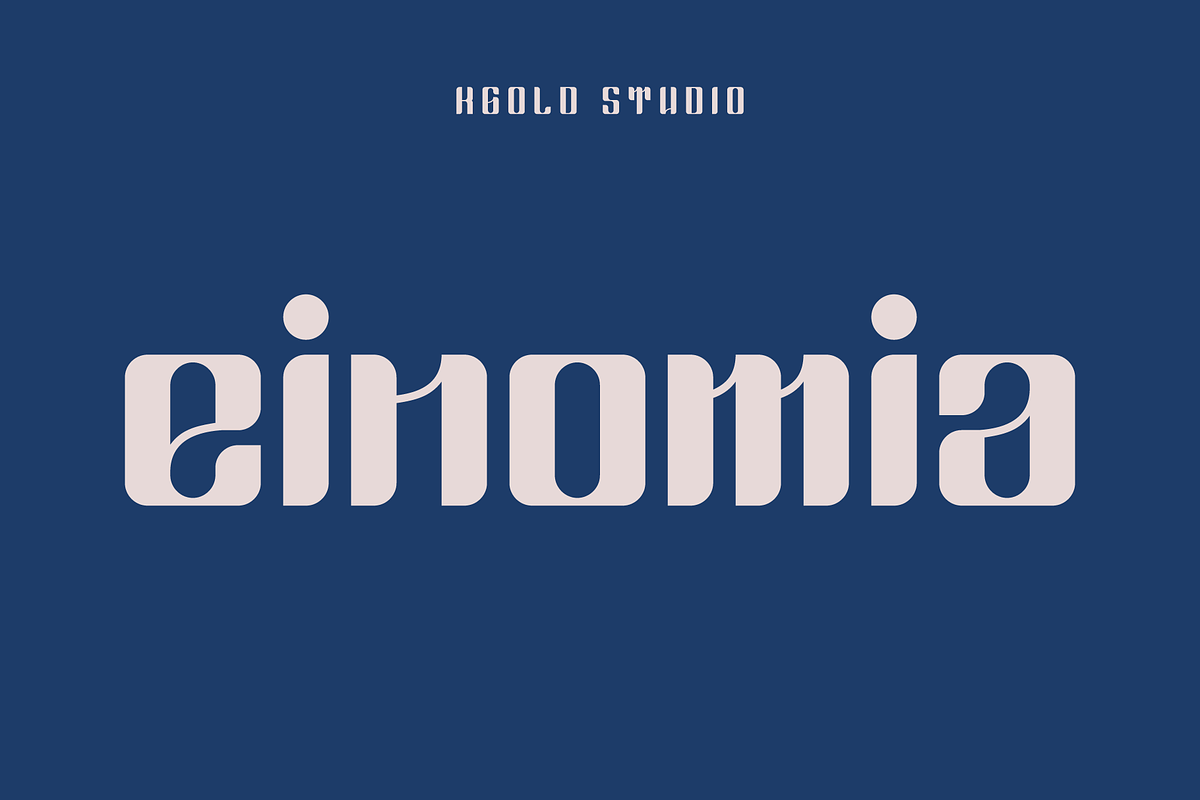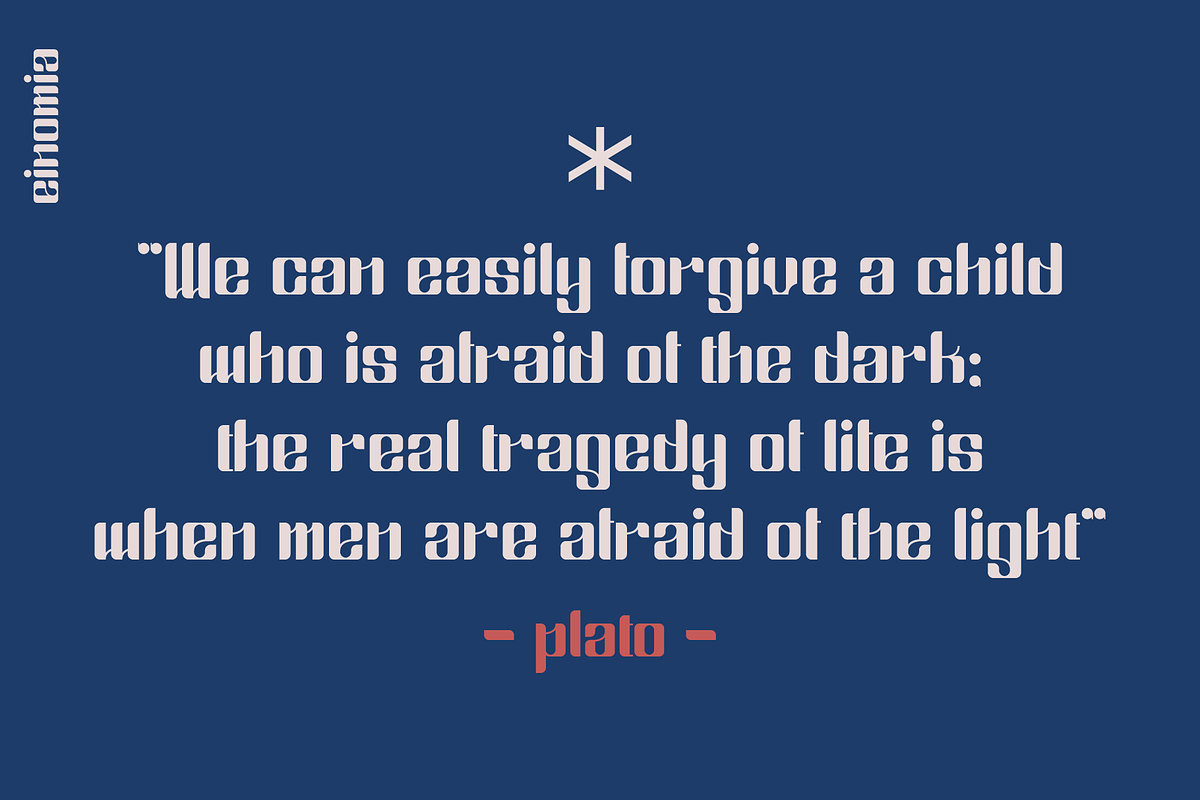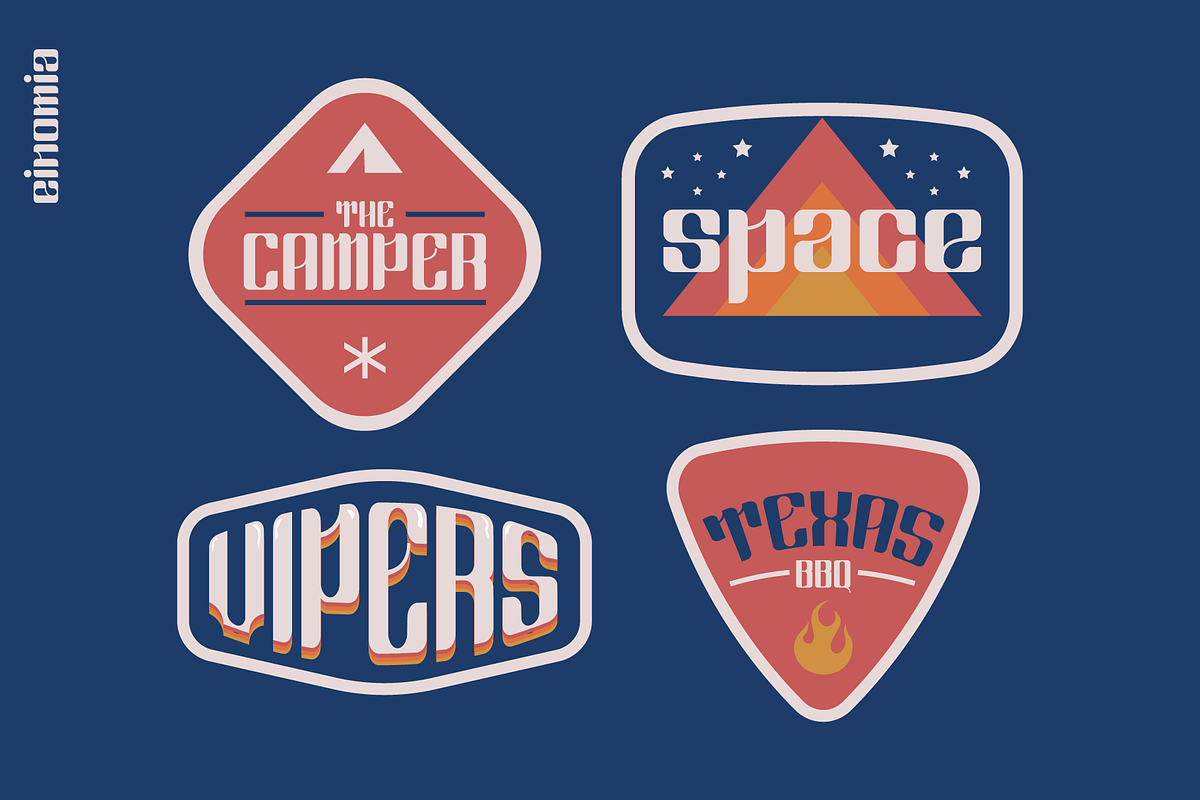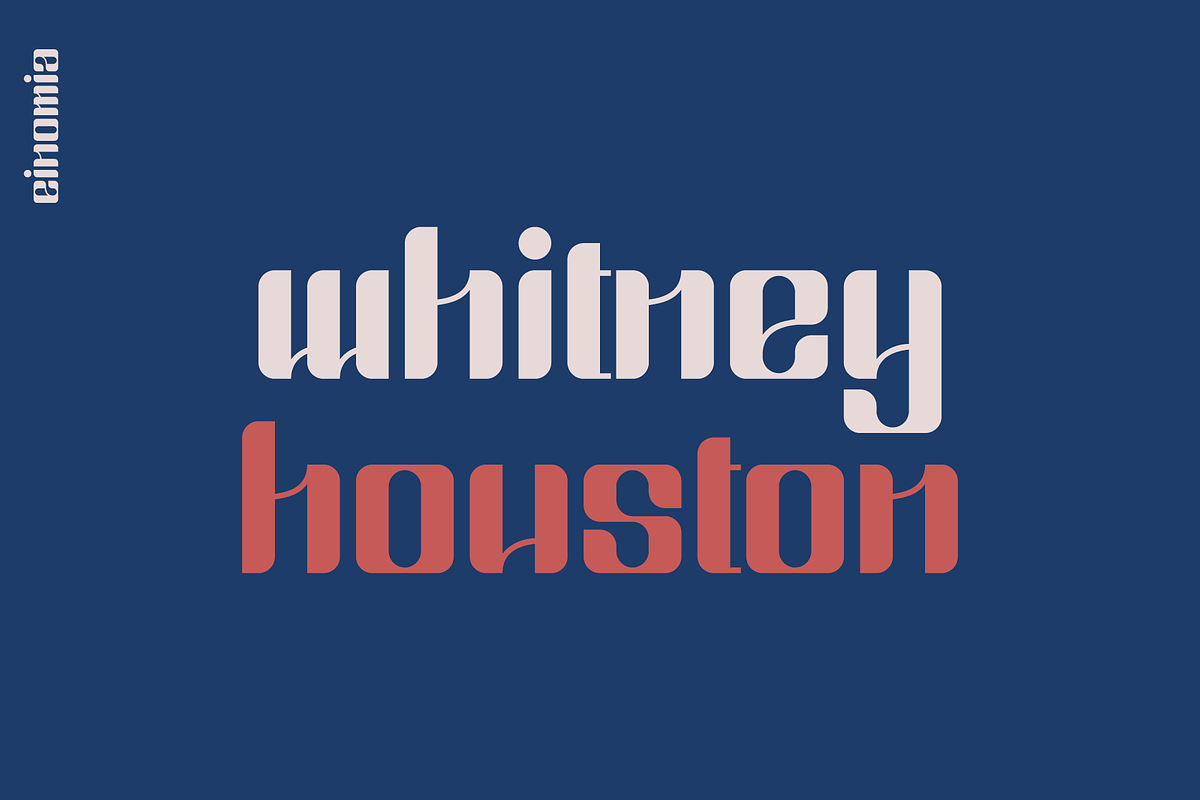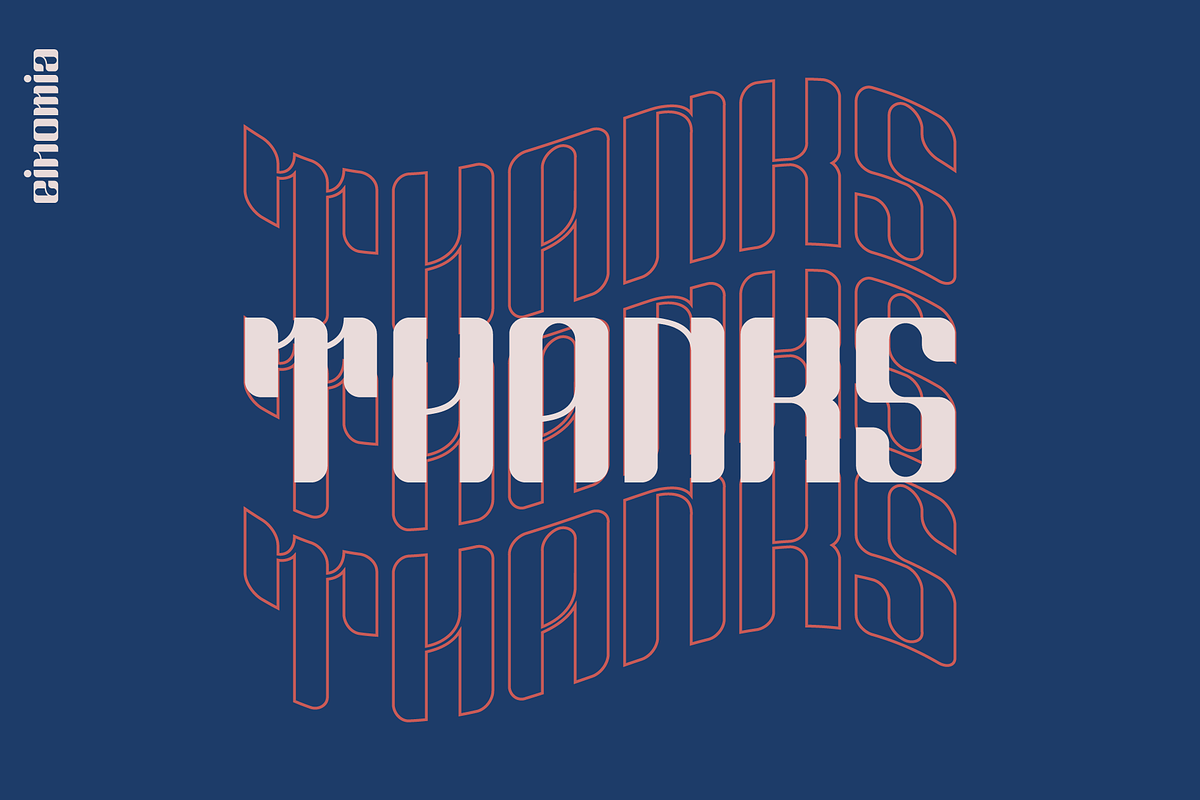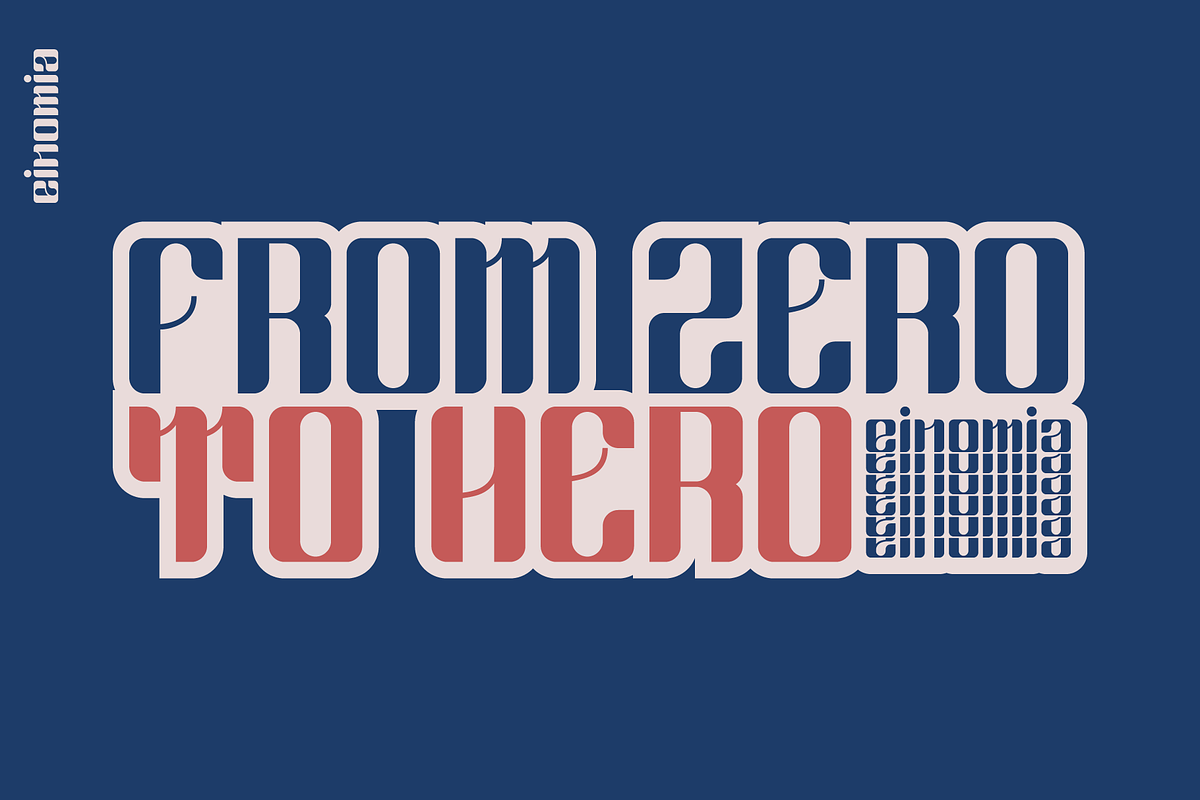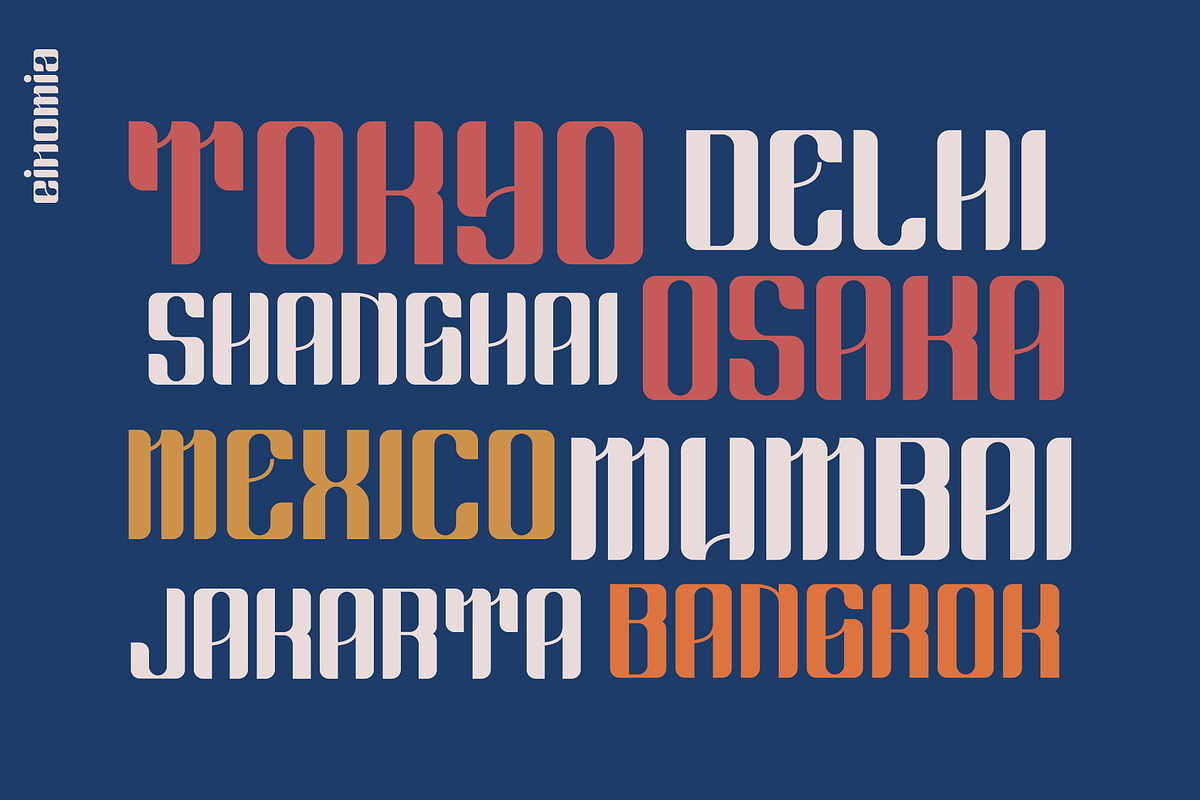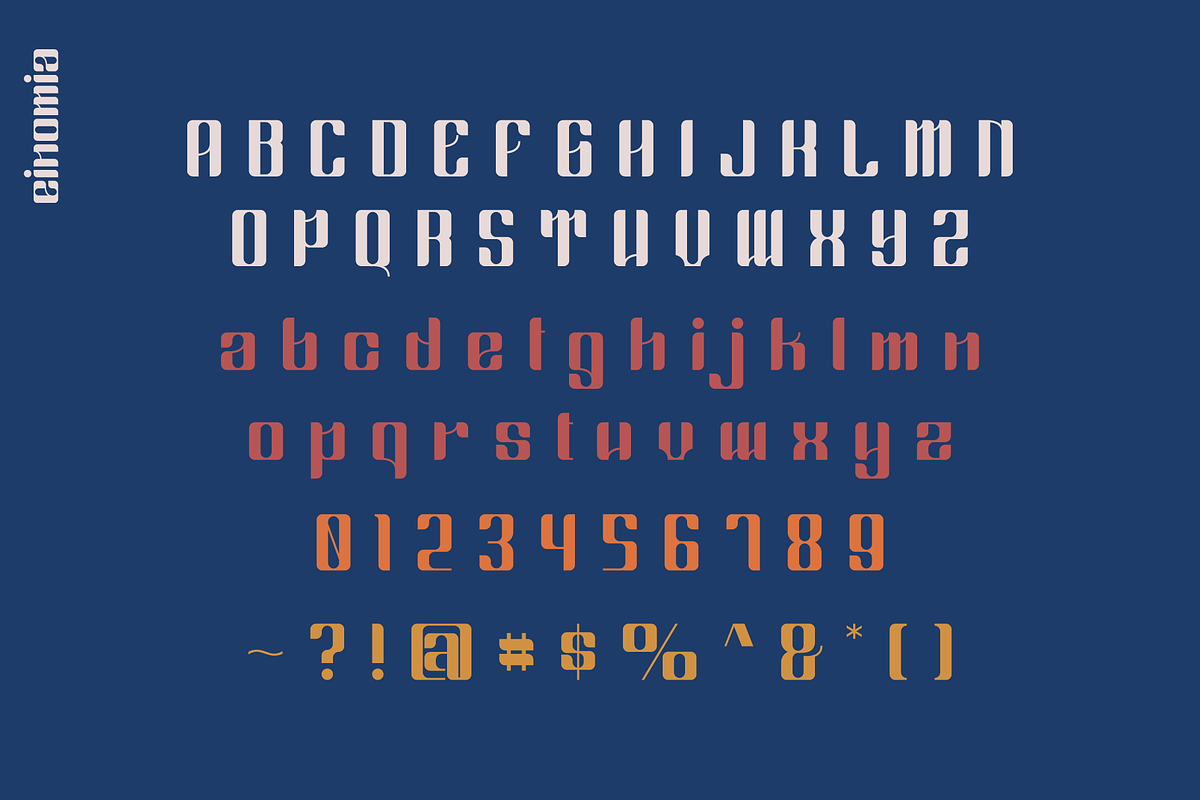
Einomia
Einomia is a captivating typeface inspired by the vibrant charm of 90s classic aesthetics and the bold, energetic vibe of pop art. With its playful curves, striking contrasts, and nostalgic touches, Einomia bridges the gap between retro flair and modern versatility.
This font radiates personality, making it perfect for eye-catching headlines, posters, packaging, and branding projects. Whether you're crafting a throwback design or injecting a burst of creative energy into your work, Einomia brings a timeless yet contemporary feel that stands out in any visual composition.
Rediscover the 90s magic with Einomia, where bold meets fun in every letter.